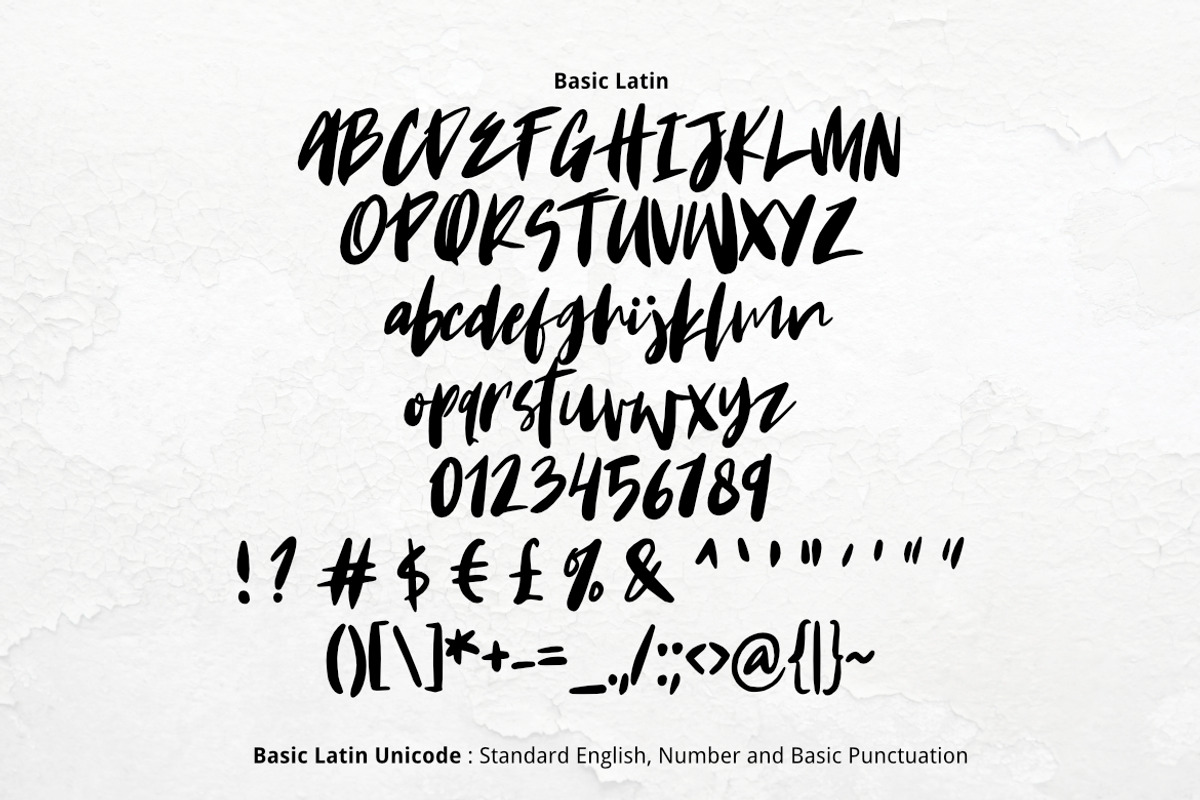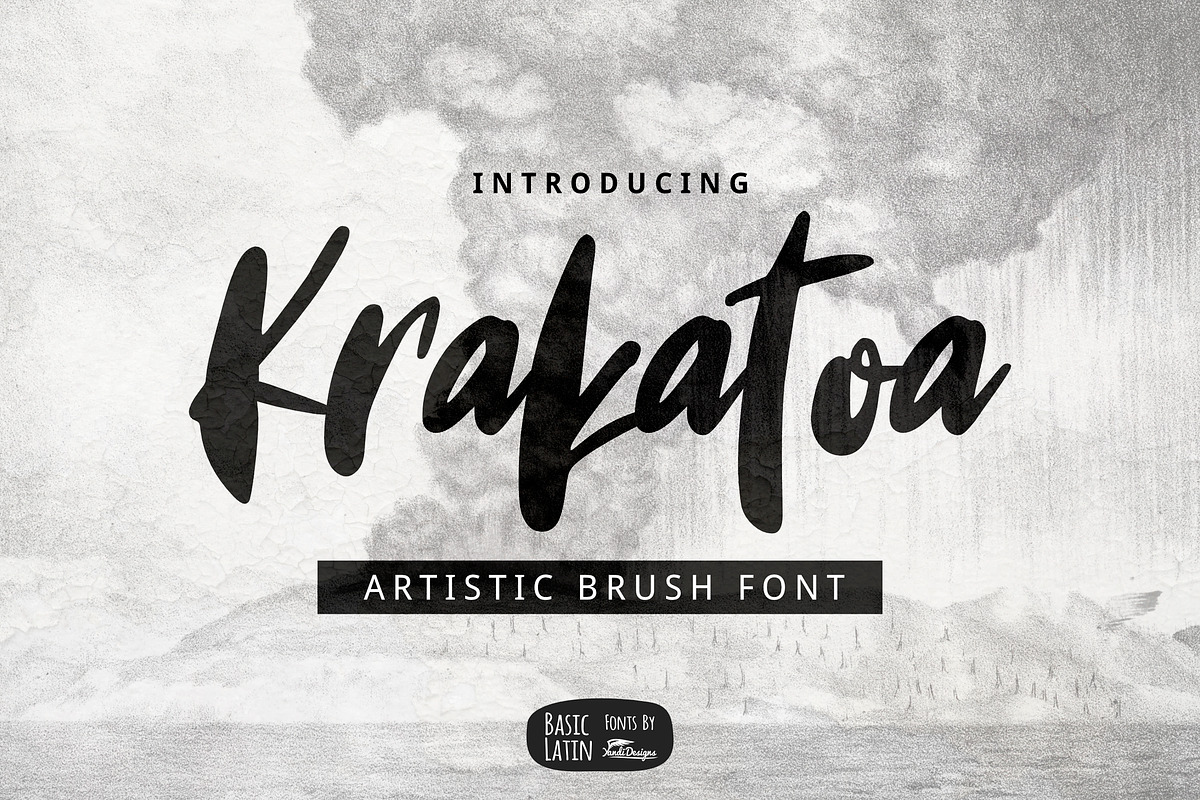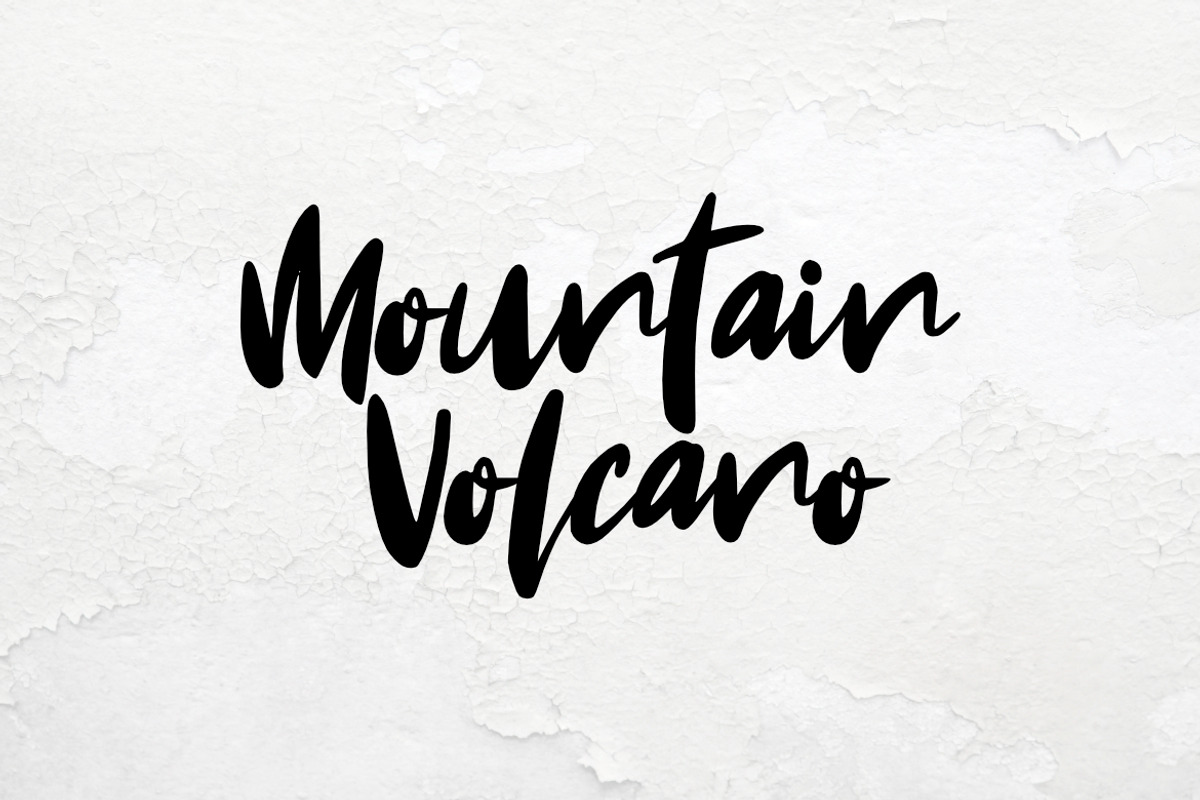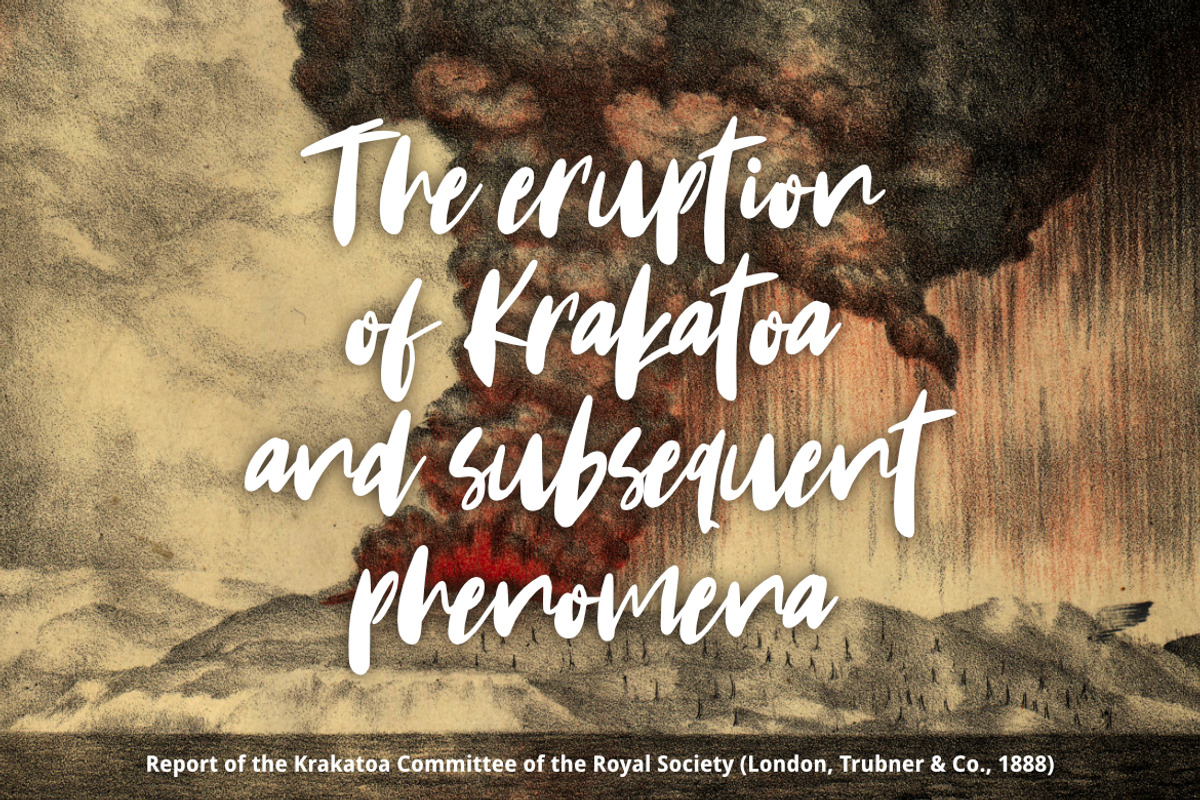
Krakatoa Brush Font
Krakatoa font is simple artistic multipurpose handmade brush font , suitable for many project children book, quotes, logo , heading , title etc.
Krakatoa Brush Font by YandiDesigns fits naturally into Branding, posters, packaging, typography.